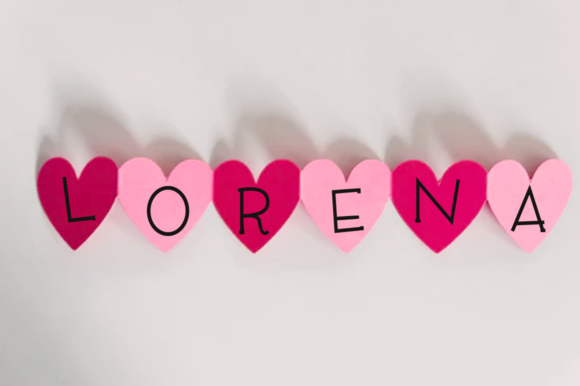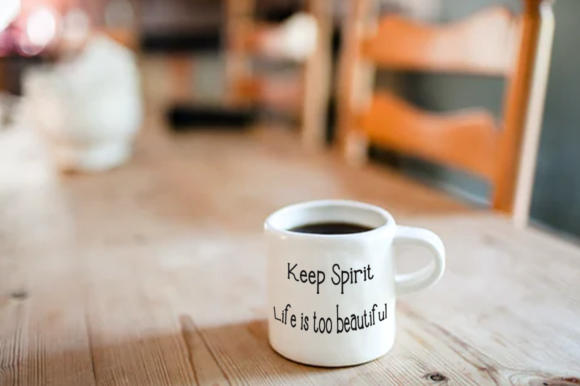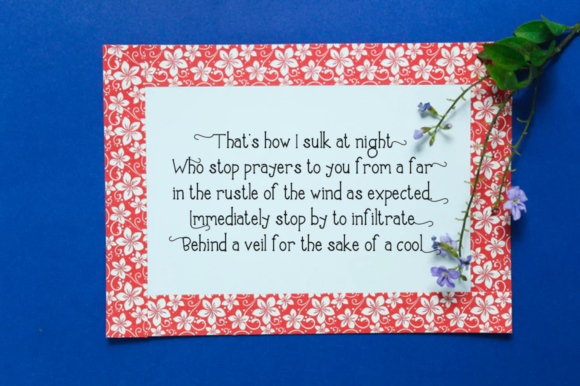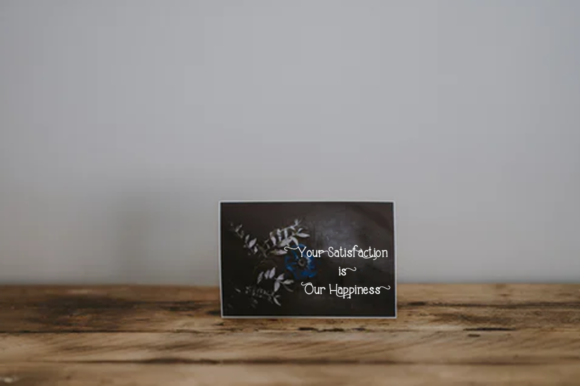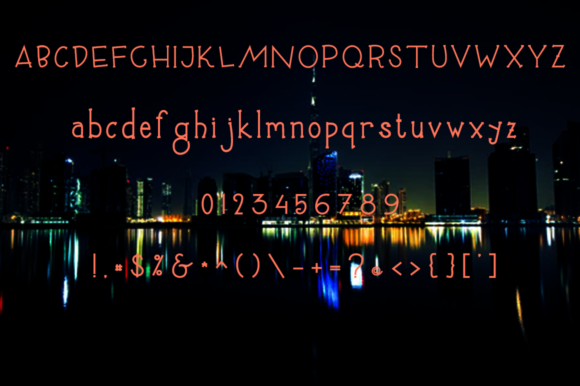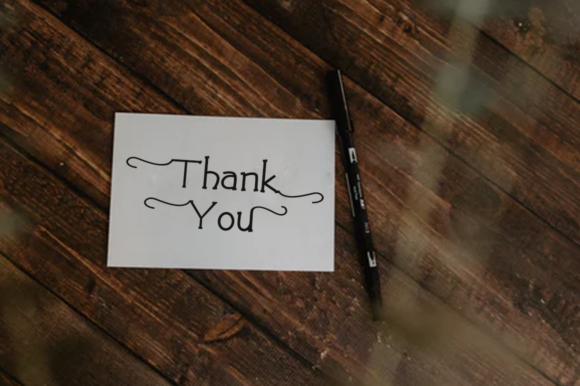
D’BOROBUDUR FONT SPECIMEN
D’Borobudur is a cool and unique slab serif font. Whether you are using it for cartoon-related designs, children’s games, quotes, titles, brand names, book covers, posters, or just any creation that requires a touch of beauty, this font is a great choice.